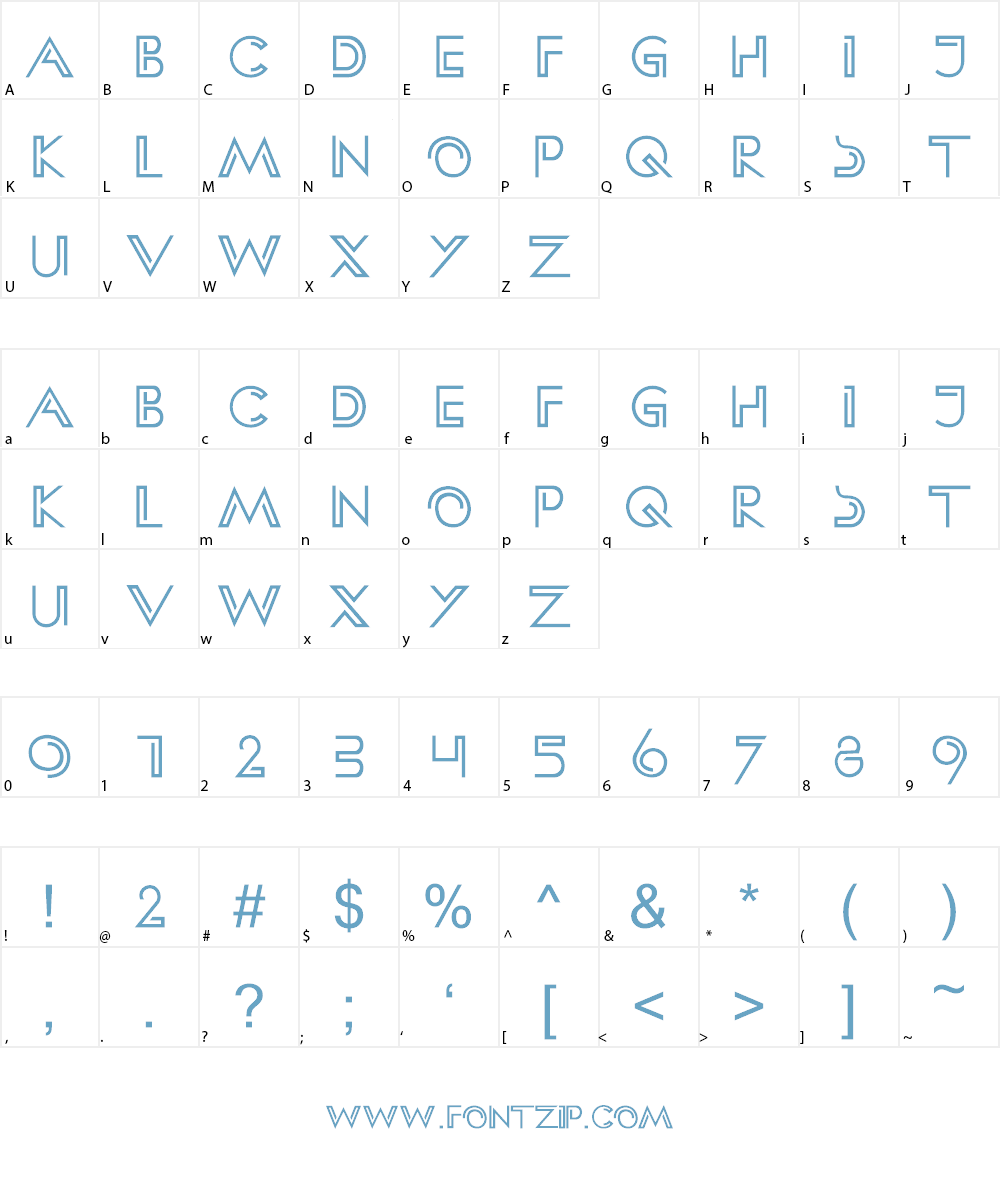
HFF Clip Hanger is based on Convoy, from page 9 of "Moderne Alphabets: 100 Complete Fonts" by Dan X. Solo, first published by Dover Publications in 1999.